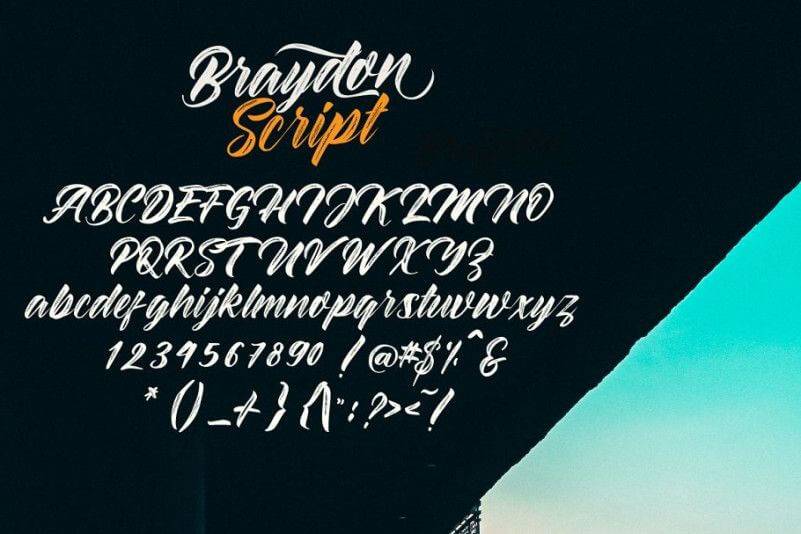
Braydon Script Font
Introducing Braydon Font, This is a Script brush font. A hand-drawn typeface is another name for it. It has an attractive, stylish, and cool appearance. It’s ideal for any fashionable project you’re working on right now. The lovely typeface was created by the debut studio and published by them. The typeface supports a variety of languages, including Afrikaans, Albanian, Catalan, Croatian, Czech, Danish, Dutch, English, Estonian, and others.
Braydon Script is the ideal typeface for all of your comical projects. It’s a handwritten typeface that’s ideal for branding projects, logos, wedding designs, social media posts, commercials, product packaging, product designs, labels, photography, watermarks, invites, stationery, and any other project that requires handwritten characters.